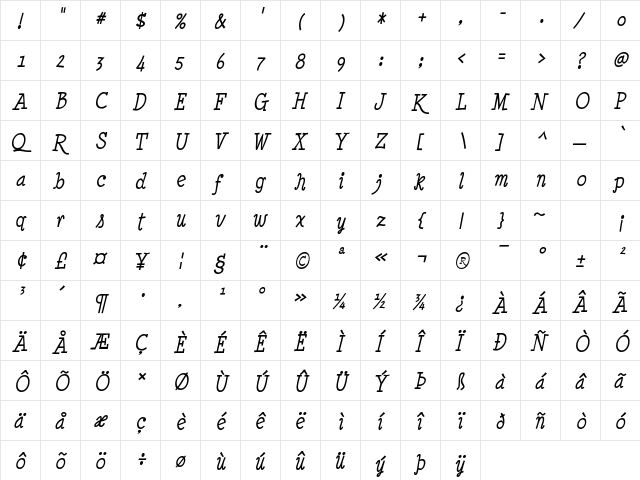
Minya Nouvelle Italic
Design Context for Minya Nouvelle Typeface
Minya Nouvelle offers clean, dependable letterforms without strong stylistic allegiance, making it a practical choice for designers who need flexibility. The dynamic lean of this cut emphasises speed and emphasis in any layout.